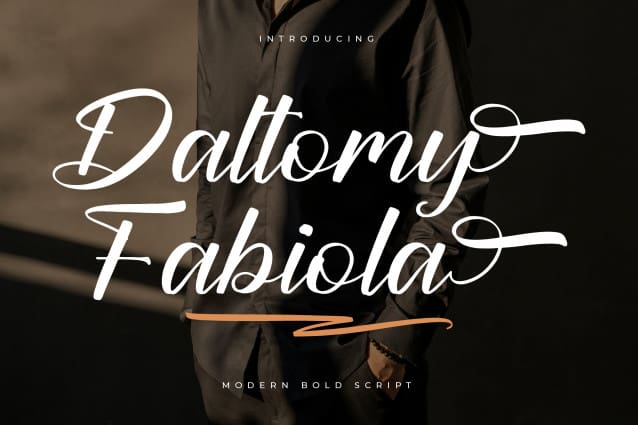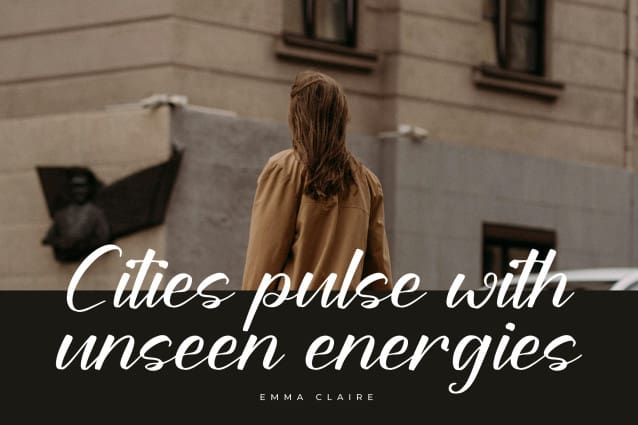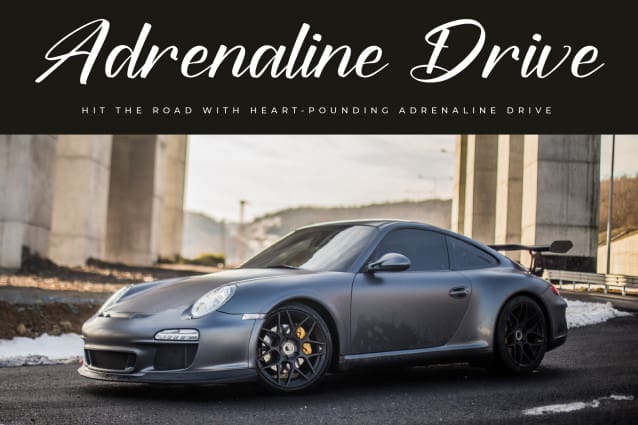
Daltomy Fabiola Font
Daltomy Fabiola Font – Modern Bold Script , from Letterena, is a Luxury Script font, suitable for any projects such as: logos, branding projects, homeware designs, product packaging, mugs, quotes, posters, shopping bags, t-shirts, book covers, name card, invitation cards, greeting cards, label, photography, watermark, special events, and all your other luxury and beautiful projects that need a Luxury Script taste.